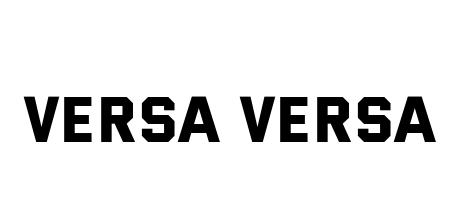
Versa Versa
Versa Versa: A bold, sans-serif typeface commands attention with its strong, uppercase letters. The consistent weight and slightly condensed proportions create a sense of power and stability. The clean lines and simple forms project a modern, confident, and slightly aggressive feel. Each letter is clearly defined, ensuring maximum readability even at smaller sizes.